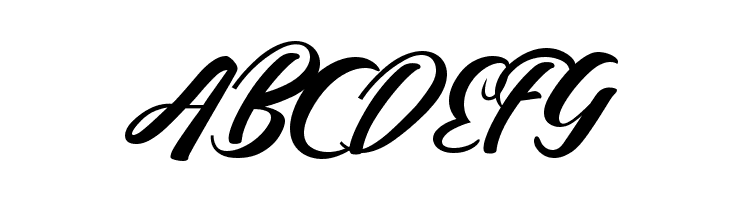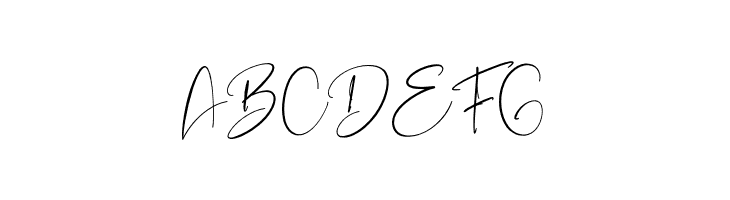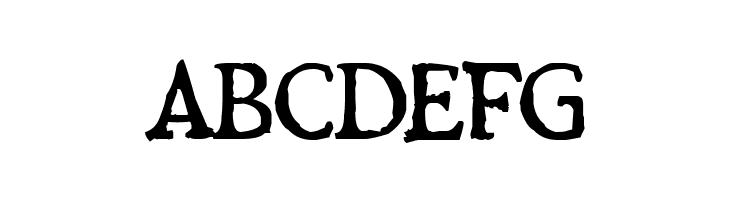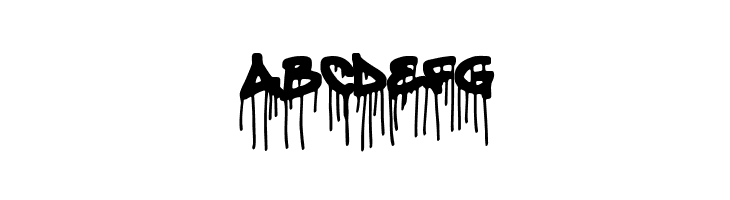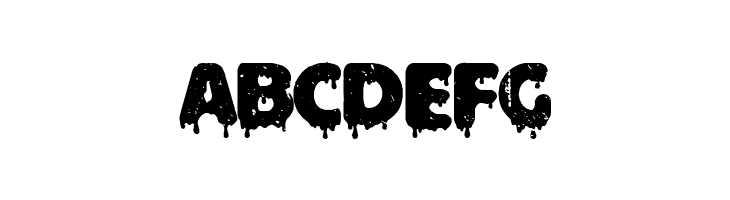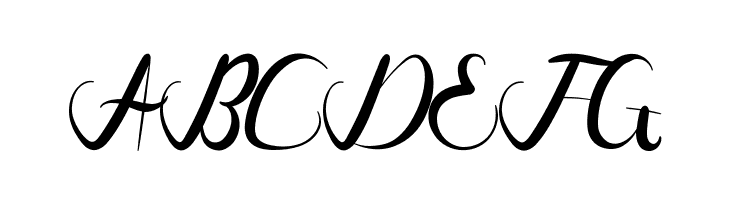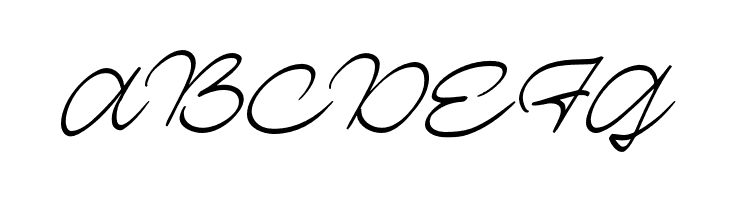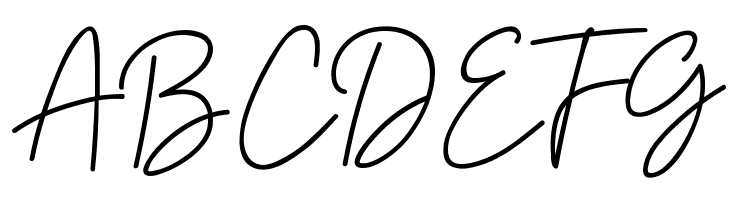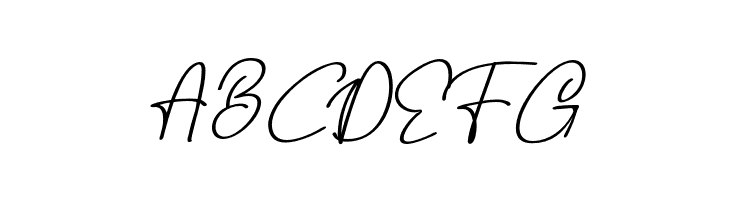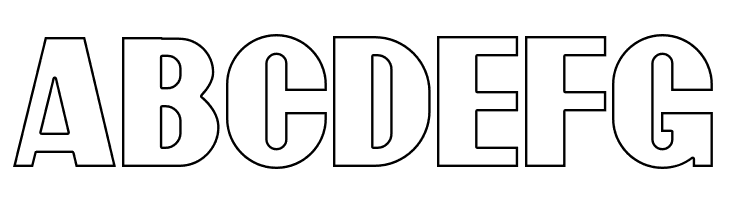
• Barcelona Italic
A sleek, italicized font with a modern and elegant style.
• Barcelona Mon Amour Bold Italic
A bold, italicized script font with decorative swirls and flourishes.
• Barcelona Regular
A bold, handwritten-style font with dynamic strokes and a casual, energetic appearance.
• Barcelona Rose
A lively and dynamic handwritten font with fluid, cursive letterforms.
• Barcelona Scared
A bold, dripping font perfect for horror and Halloween themes.
• Barcelona Streets
A bold, graffiti-style font with a dripping paint effect, perfect for urban-themed designs.
• Barcelona White Noise
Energetic, rough brushstroke display font with chaotic, hand-drawn style.
• Barcelona Winter
Ornate blackletter style with sharp, angular forms and high contrast.
• BarcelonaHistoria-Regular
A flowing, elegant script font with a modern calligraphic style.
• BarcelonaHistoria-Regular
A flowing, elegant script font with dynamic, cursive strokes.
• Barcelony
A lively, flowing script font with elegant, connected strokes.
• Barcely
A dynamic and elegant script font with fluid, cursive strokes.
• Barchella_Drumal
A modern, elegant font with elongated letterforms and sharp edges.
• BARCODE TFB
A barcode-inspired font with geometric, linear characters.
• Barcoding
Barcode-style font with vertical line constructions.
• BardenBelley-Regular
An elegant, flowing script font with graceful curves and smooth connections.
• BardistanScriptDEMO-Regular